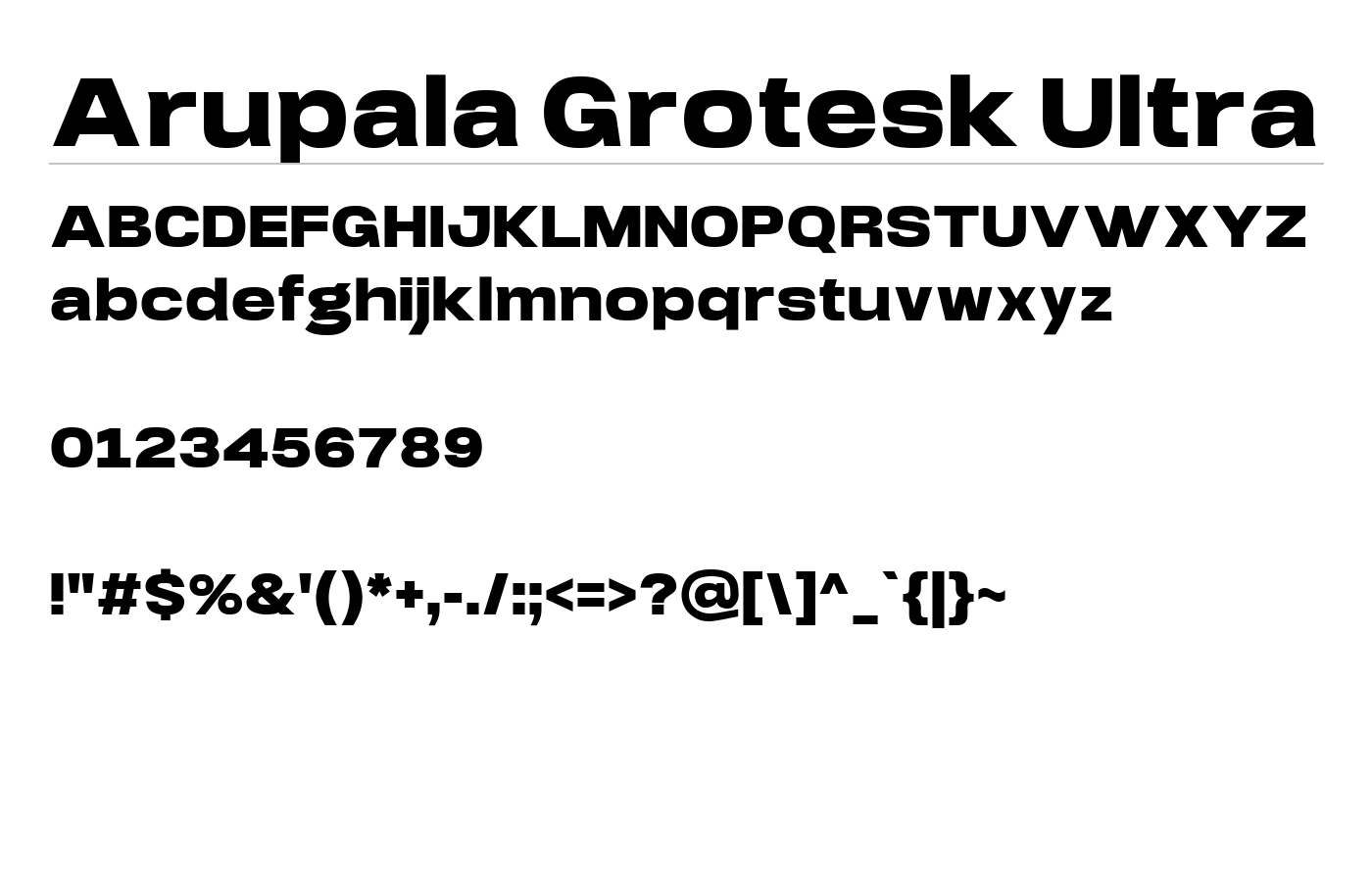
Arupala Grotesk Ultra is a bold, sans serif font with a strong, modern presence. Its heavy weight, wide proportions, and clean geometric shapes make it ideal for impactful headlines and branding that demands attention. This font works well in advertising, posters, and websites where a confident and contemporary look is needed.
Arupala Grotesk Font
About Arupala Grotesk Font
| Font family | Arupala Grotesk Font |
| Languages supported | Latin, Symbols, Greek, Thai |
| Designer | Khairil Anwar |